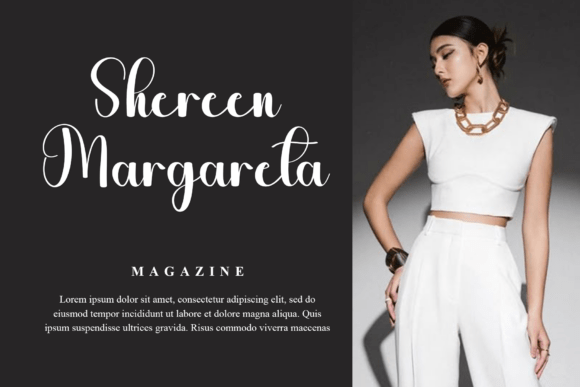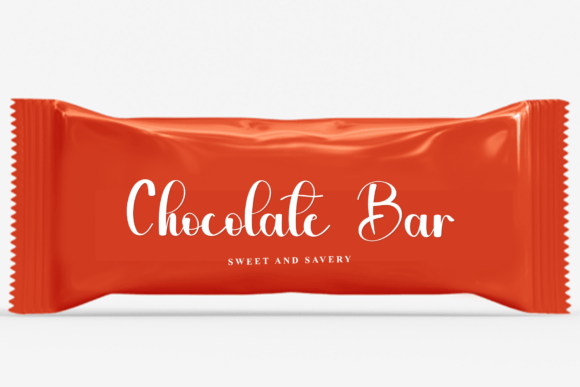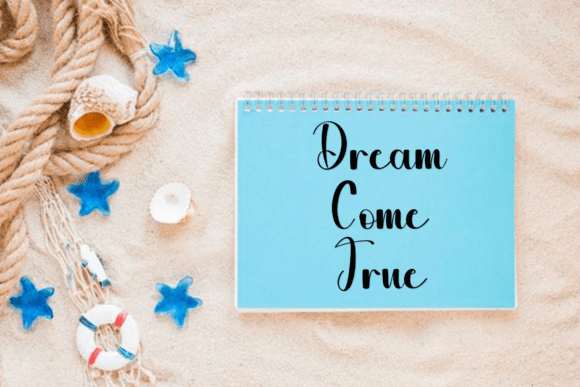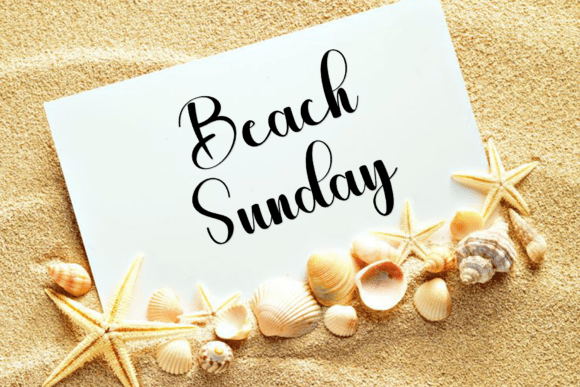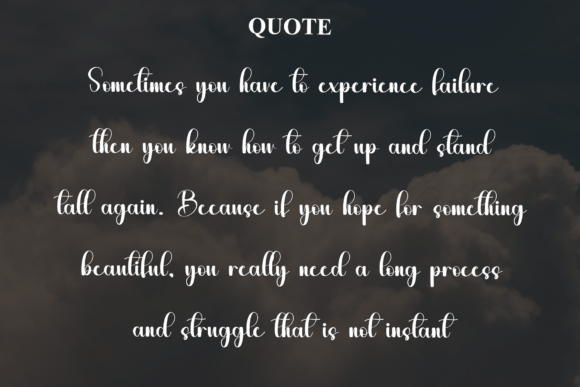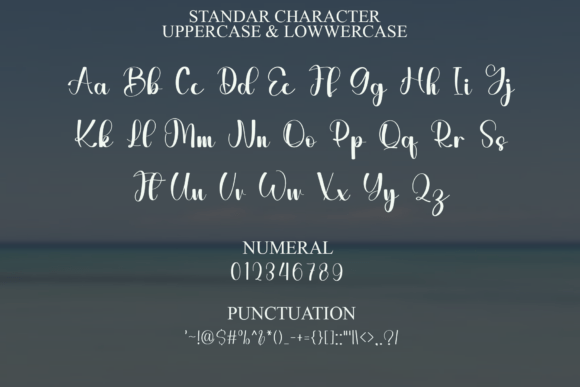
The Perfect Font for a Personal Touch
Have you ever stumbled upon a font that just makes you feel like you’re holding a warm cup of coffee on a lazy Sunday morning? That’s exactly what I experienced when I first laid eyes on the Blue Magnolia Font. Its playful, hand-drawn strokes instantly put a smile on my face, and I knew I had to learn more about this charming font.
As it turns out, the Blue Magnolia Font is a casual and creative typeface that’s perfect for personal projects, invitations, and social media graphics. Its relaxed and approachable feel makes it an ideal choice for designers who want to add a touch of warmth and friendliness to their designs. With its standard PUA Encoded glyphs, this font is easily usable in various application engines, making it a valuable addition to any designer’s toolkit.
Blue Magnolia Font Key Features
- Font Family: Blue Magnolia
- Unique Characteristics: Elegant script design, beautiful swashes, and intricate flourishes make it perfect for wedding invitations, greeting cards, and other special occasions
Blue Magnolia Font Review
Overall, I think Blue Magnolia is a lovely font, but it has its quirks. Let’s start with the good stuff: ✨ The font’s elegant, hand-painted feel is perfect for adding a touch of whimsy to branding materials, invitation designs, or even digital products. The subtle texture and subtle color variations give it a unique charm that’s hard to resist.
✨ Another thing I appreciate is the font’s flexibility. It works well for both print and digital applications, and it’s available in a range of weights and styles, from Light to Bold. This makes it a great choice for designers who need a versatile font that can adapt to different design contexts.
However, there are some limitations to consider: ⚠️ The font’s texture can sometimes make it difficult to read, especially at smaller font sizes. This can be a problem for designs that require clear, concise typography. Additionally, the font’s unique feel can be a bit overwhelming if overused – it’s best to use it sparingly to add visual interest.
- Key Features: Elegant, hand-painted feel, subtle texture, flexible font weights and styles
- Best For: Branding materials, invitation designs, digital products, and designs that require a touch of whimsy
- Limitations: Can be difficult to read at smaller font sizes, may be overwhelming if overused
Tips for Getting the Most Out of Blue Magnolia Font
Use Blue Magnolia font for formal and elegant designs, such as wedding invitations, business cards, and luxury branding. Experiment with different font sizes and combinations to create a unique visual effect.
Blue Magnolia font is ideal for:
- Luxury branding and packaging
- Formal event invitations and announcements
Pacifico is a beautiful script font that’s perfect for creating a sense of calm and serenity. It’s ideal for use in designs that require a touch of elegance and sophistication, such as restaurant menus, spa websites, and wellness brands. Compared to Blue Magnolia Font, Pacifico has a more refined and polished feel, making it perfect for designs that require a sense of luxury and refinement.
Q: Is the Blue Magnolia Font available in different weights and styles?
Yes, the Blue Magnolia Font is available in a range of weights and styles, including Light, Regular, Bold, and Extra Bold. Each weight and style has its own unique characteristics and can be used to create a range of different effects and moods in your designs. You can also use the